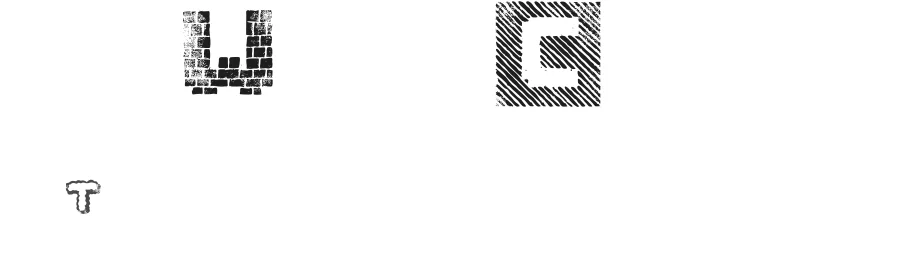
About Threedimensional Font
Threedimensional is a decorative font designed by Manfred Klein. It includes 68 glyphs, a medium weight, TTF (TrueType) format, and 89 languages. Threedimensional is free to download; check the license details on this page before commercial use. Decorative fonts like Threedimensional work best for logos, posters, packaging, and standout headlines.
Threedimensional Font is a decorative font that shines as a display or heading face. Pair it with a clean sans-serif or serif font for body text β the contrast creates a clear hierarchy while the two styles stay balanced and easy to read.
Threedimensional Font
Threedimensional Font is a decorative typeface by Manfred Klein, ideal for logos, invitations, branding, and creative projects.